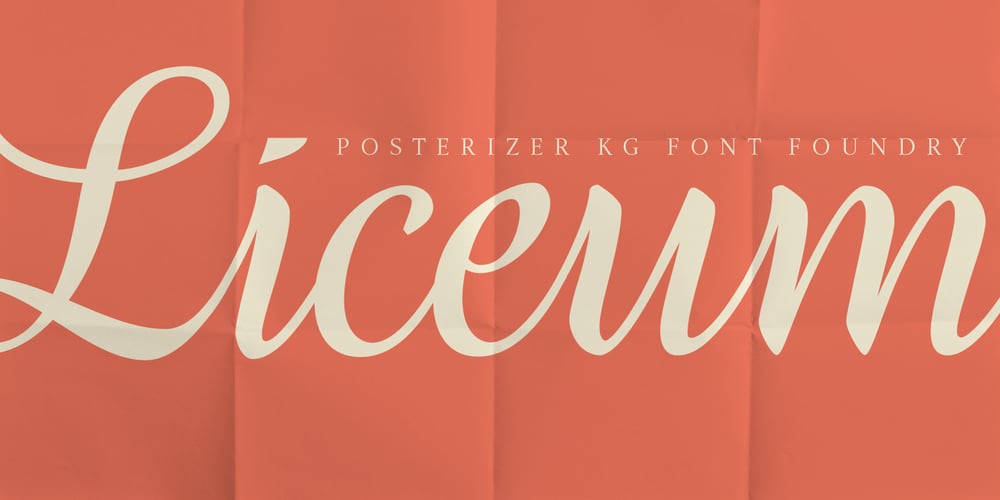
Liceum Font Family was designed by Lazar Dimitrijević and published by Posterizer KG. Liceum contains 1 styles and family package options. Liceum is a calligraphic script with attractive look, created in the name of Gymnasium in ancient Athens, where Aristotle and the Peripatetics taught philosophy. The OpenType feature includes Stylistic Alternatives, Swash, Ligatures, Discretionary Ligatures, more than 150 Dingbats and Ornaments, Diacritical, and Cyrillic letters. It allows you to mix and match letter pairs to fit your design into a harmonious typographic whole (headlines). Liceum font is attractive but classical, smooth, clean, simple, elegant, and very legible.Liceum is very suitable for various purposes and design of logos, posters, brands, t-shirts, letterhead, signage, book covers, magazines, invitations, labels, menus, fashion, stationery, letterpress, book covers, diplomas, certificates, greeting cards, packaging, and other beautiful and creative things.